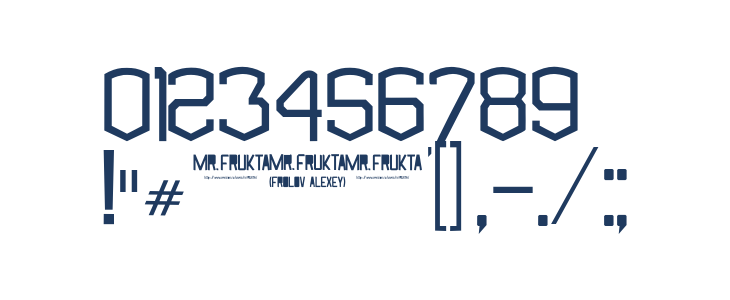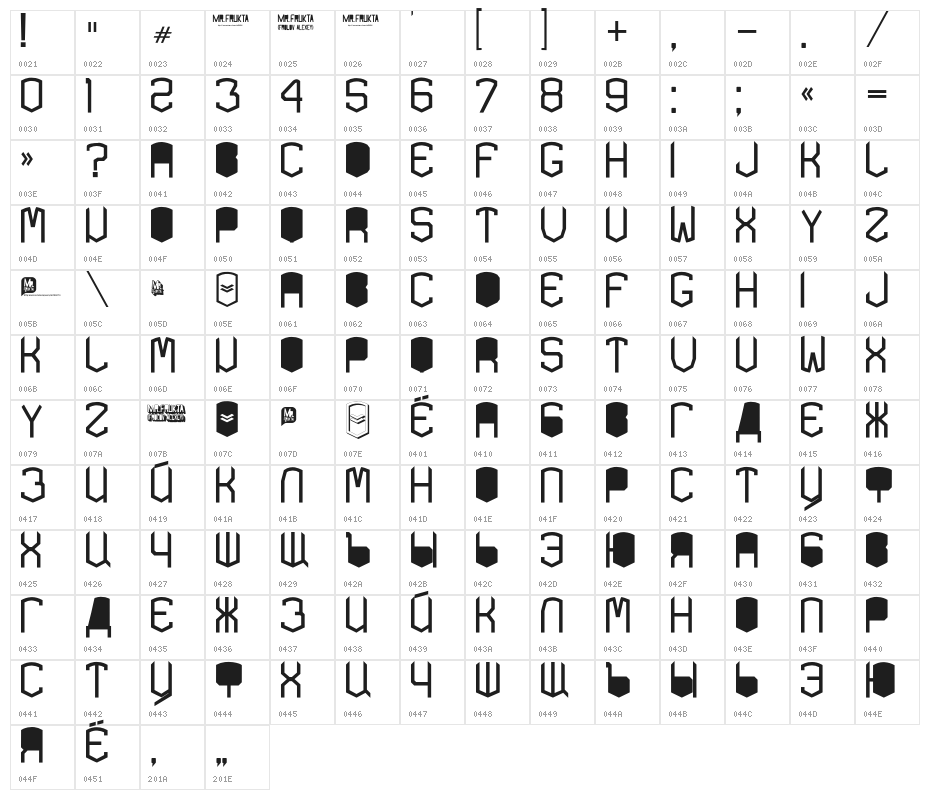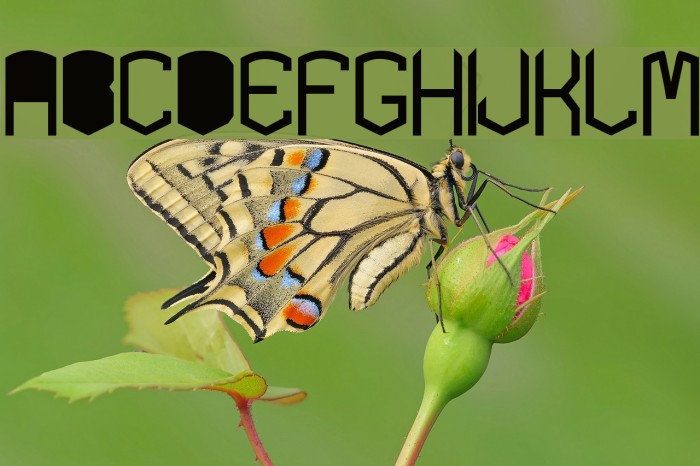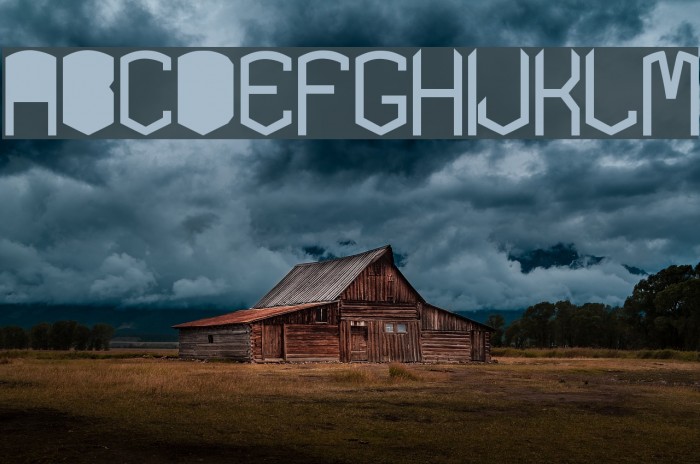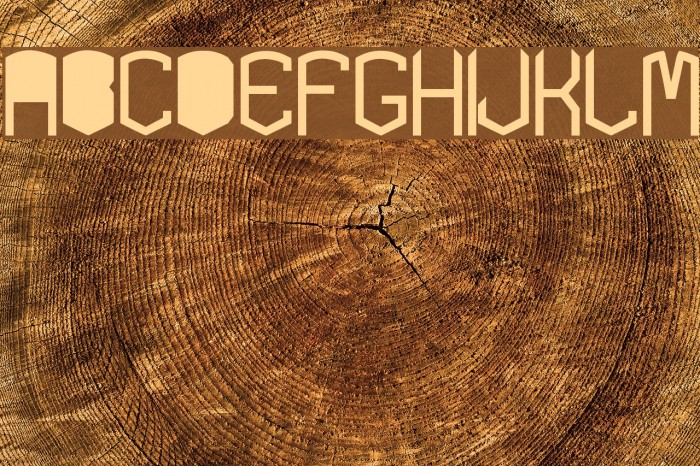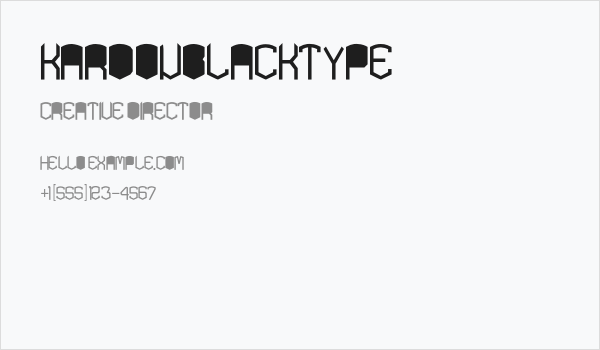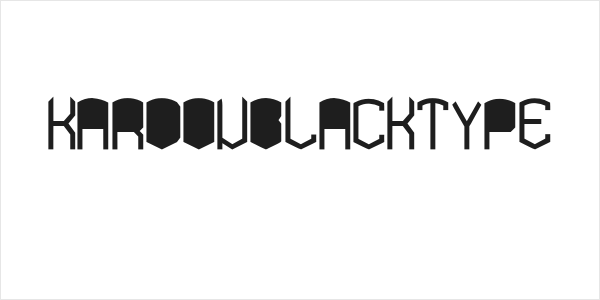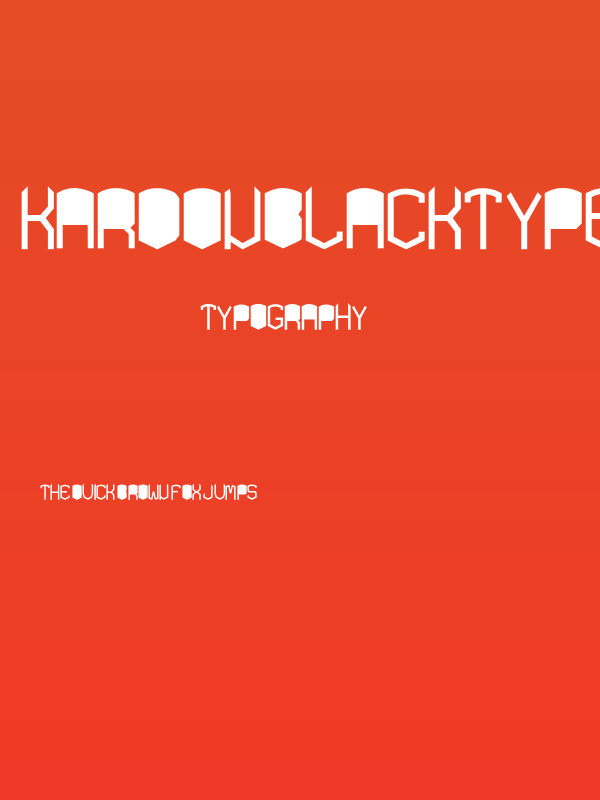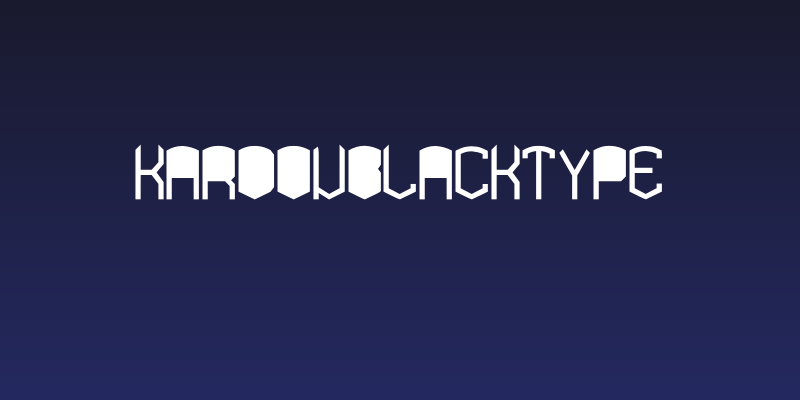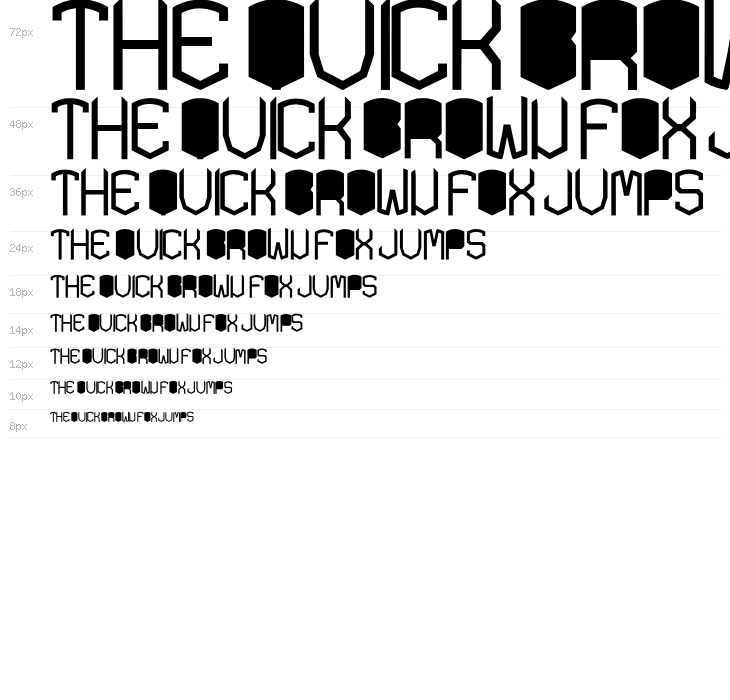
KARDONblackTYPE Font
KARDONblackTYPE Description
This font features a bold, geometric design with a modern and edgy aesthetic. The characters are constructed with sharp angles and straight lines, giving them a futuristic and industrial feel. The uppercase letters are particularly striking, with a blocky appearance that commands attention. The lowercase letters maintain the same angular style, ensuring consistency throughout the typeface. Numbers and special characters are designed to match the bold and structured look of the alphabet. This font is ideal for projects that require a strong visual impact and a contemporary vibe.
| Proposed Projects | Ideal for branding, posters, album covers, and any project needing a bold, modern touch. |